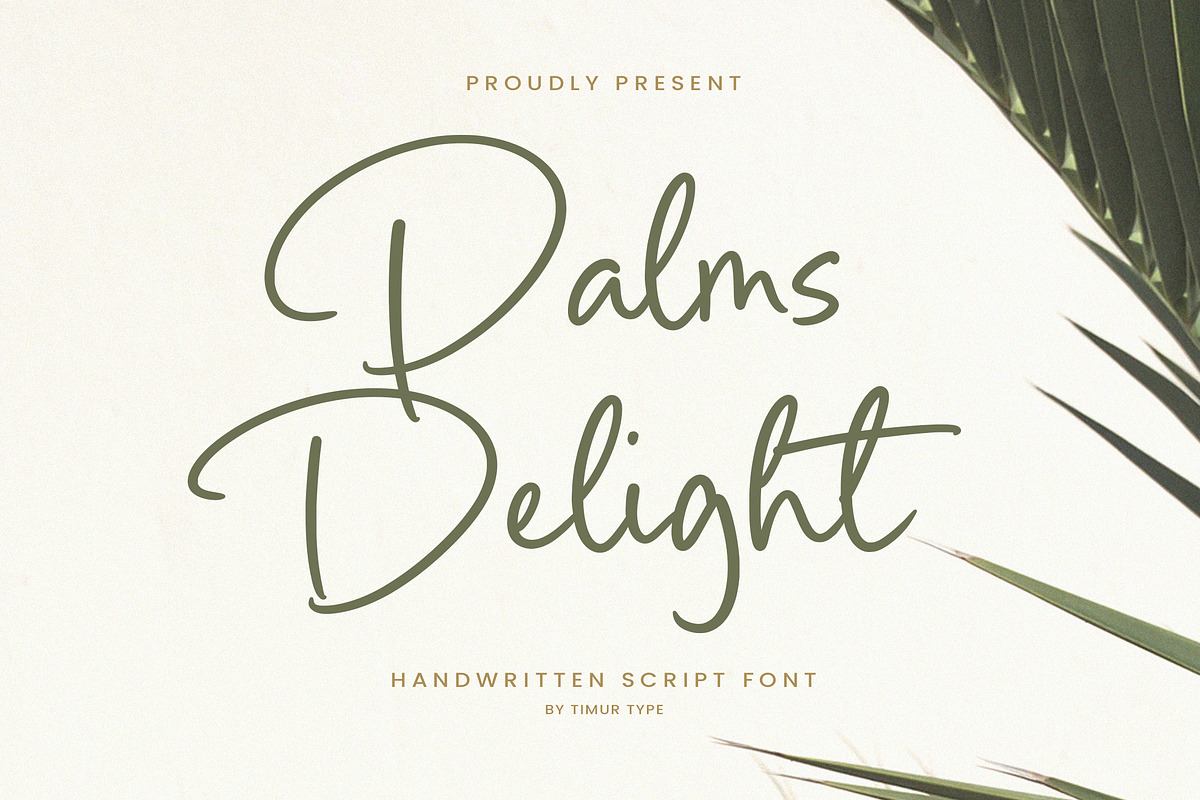
Palms Delight Font Free Download is a breezy and stylish handwritten typeface that brings tropical vibes and laid-back charm to your creative projects. With its casual flow and beach-inspired energy, this font is perfect for summer branding, vacation postcards, resort menus, travel blogs, and sunny social media posts.
Its relaxed, handwritten feel makes every word look effortlessly cool and inviting. Whether you're crafting a tropical wedding invite or designing a surf-inspired logo, Palms Delight delivers a fun yet elegant look. Palms Delight Font Free Download lets you test the font in personal projects before purchasing a license for commercial use.
Capture the spirit of sunshine and serenity with Palms Delight — a handwritten font that feels like a getaway in every letter.